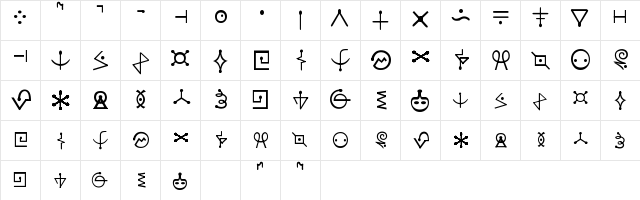
Futurama Alien Alphabet One Regular
Design Context for Futurama Alien Alphabet One Typeface
Futurama Alien Alphabet One channels digital-age aesthetics through its sharp, structured letterforms — ideal for brands that want to signal innovation.
Pro Tip: Try Futurama Alien Alphabet One with generous letter-spacing in UI labels and navigation — the geometric forms benefit from room to breathe.